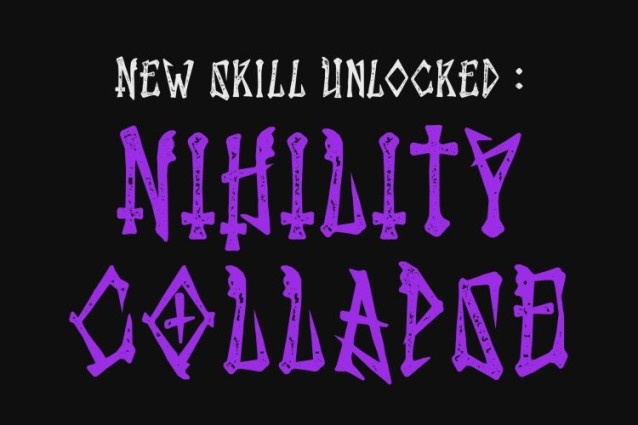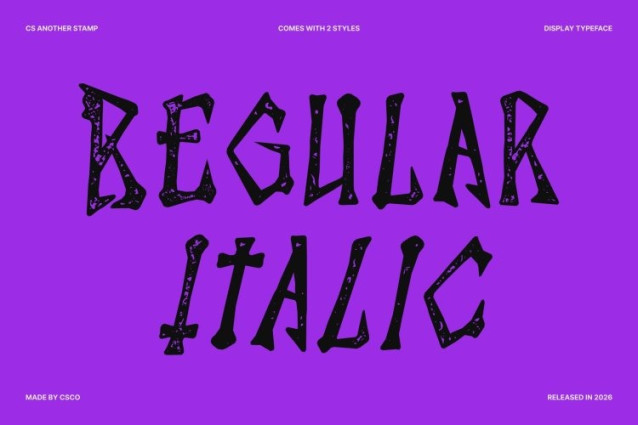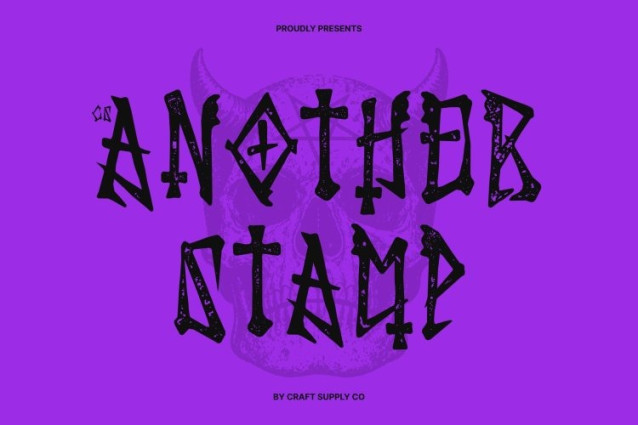
CS Another Stamp Font
CS Another Stamp Font This is a gothic display typeface that fuses sharp, ornate letterforms with a rugged stamp effect. The pointed edges and dramatic contrasts remain striking and mysterious, while the stamped texture introduces worn details, rough ink impressions, and an aged, analog feel. This combination creates a powerful visual presence that feels dark, expressive, and authentically old-world.
Intriguing, Mysterious, and Intensely Dark
Built to evoke intrigue and shadowy elegance, this font amplifies gothic drama through its distressed surface. Each character feels forcefully pressed, giving the font a raw, handcrafted quality that enhances its ominous tone. The imperfect texture adds depth and emotion, making the typography feel alive, haunting, and full of atmosphere.
Enigmatic Gothic Style with Old-Print Character
While rooted in classic gothic aesthetics, the stamp effect pushes this font into a more expressive and artistic realm. The rough edges and textured finish recall vintage horror posters, medieval-inspired prints, and underground dark art. It balances menace and sophistication perfect for designs that want to feel both refined and fearsome.
Perfect for Horror, Fantasy, and Dark-Themed Branding
This font excels in horror visuals, fantasy book covers, occult branding, dark event posters, and mystical logos. Its bold gothic form combined with vintage stamp texture delivers a dramatic, spine-chilling impact. This font is ideal for creators seeking typography that feels mysterious, powerful, and timelessly dark.